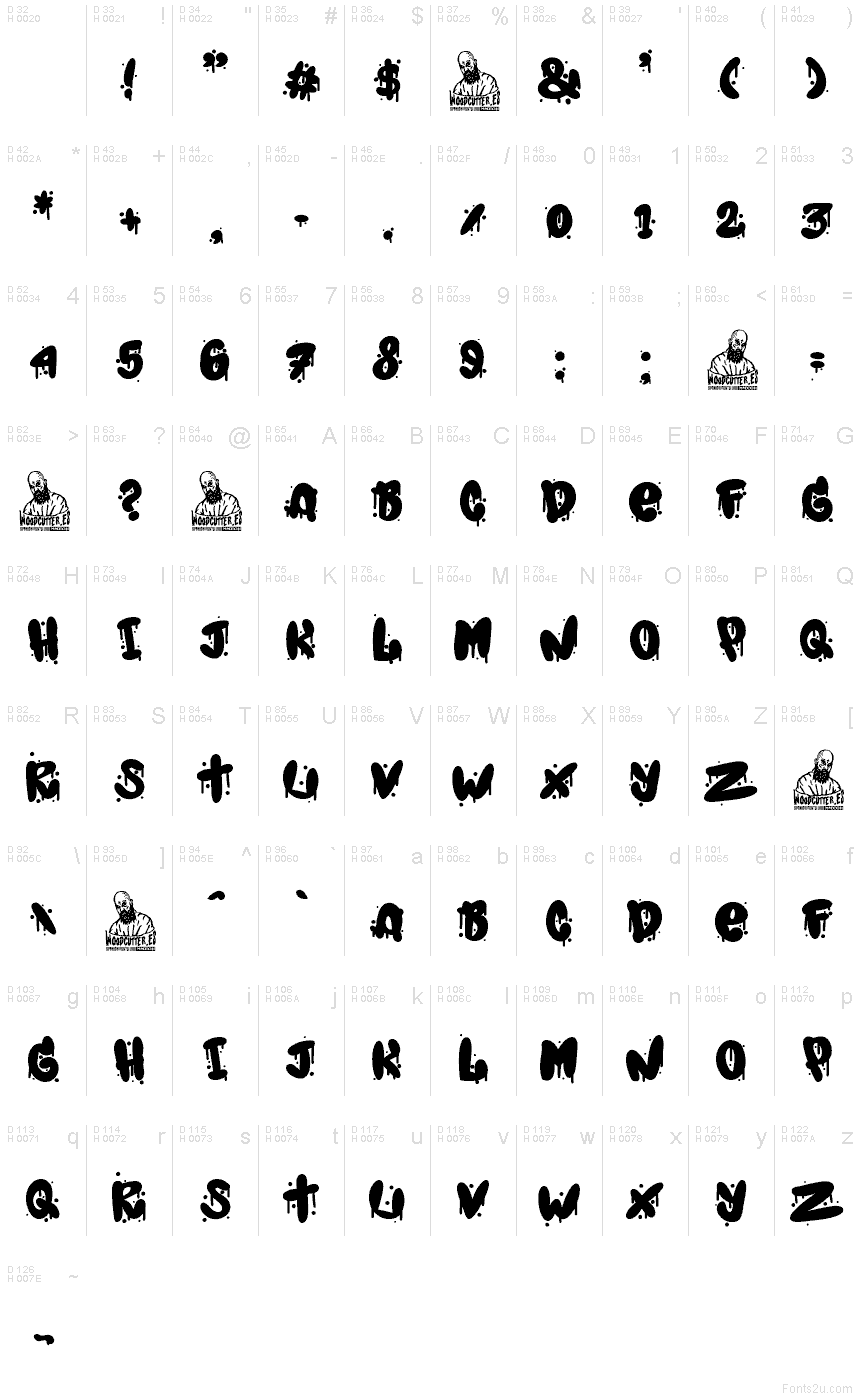
Spray Typo Gang
Spray Typo Gang font by Woodcutter is a free graffiti typeface that hits with bold, inky shapes and paint-drip splatters. Each letter looks freshly sprayed—thick, rounded strokes, blobby edges, and puddled dots that feel wet on the wall. It brings an unapologetically urban pulse, the kind you can almost smell: aerosol, concrete, night air.
Using Spray Typo Gang, your titles jump like a tag on a roll-up door. It shines on event flyers, album covers, skate or streetwear branding, game titles, festival posters, and sticker packs. Keep it big so the drips read; pair with a clean condensed sans for credits or small info to keep layouts balanced. This free font delivers loud attitude fast.
Spray Typo Gang.
Using Spray Typo Gang, your titles jump like a tag on a roll-up door. It shines on event flyers, album covers, skate or streetwear branding, game titles, festival posters, and sticker packs. Keep it big so the drips read; pair with a clean condensed sans for credits or small info to keep layouts balanced. This free font delivers loud attitude fast.
Spray Typo Gang.